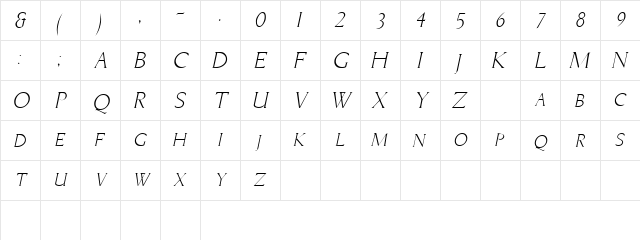
Brice Italic
Design Context for Brice Typeface
Brice offers clean, dependable letterforms without strong stylistic allegiance, making it a practical choice for designers who need flexibility. The dynamic lean of this cut emphasises speed and emphasis in any layout.
Pro Tip: Use Brice for emphasis, pull quotes, and subheadings where its slanted energy can add rhythm to the layout.